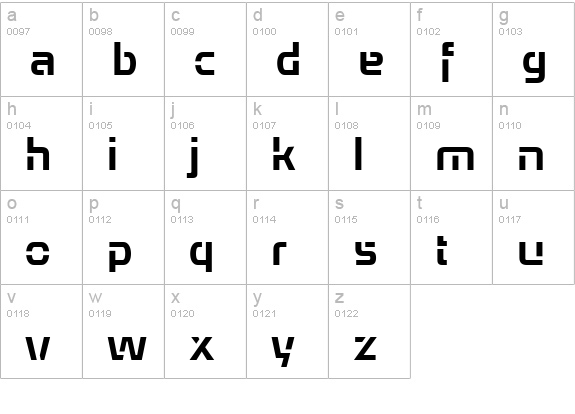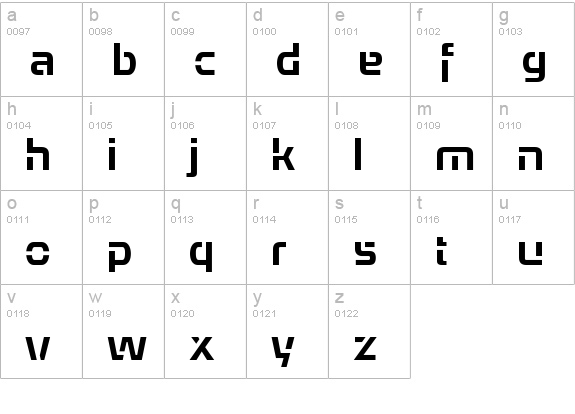
Alepholon Font Details
Alepholon font is a stunning and elegant typeface that exudes sophistication and style. Its unique blend of classic and modern design elements makes it perfect for a wide range of projects, from branding to editorial design. The smooth curves and sharp edges of Alepholon font create a harmonious balance that is both eye-catching and easy to read. What makes Alepholon font even more appealing is that it is available for free download at FontsMarket.com. This means that you can easily access this high-quality font without any cost, making it a valuable addition to your font collection. Whether you are a professional designer or a hobbyist looking to elevate your projects, Alepholon font is a fantastic choice that will surely impress. Download it today and unleash your creativity with this exquisite typeface.